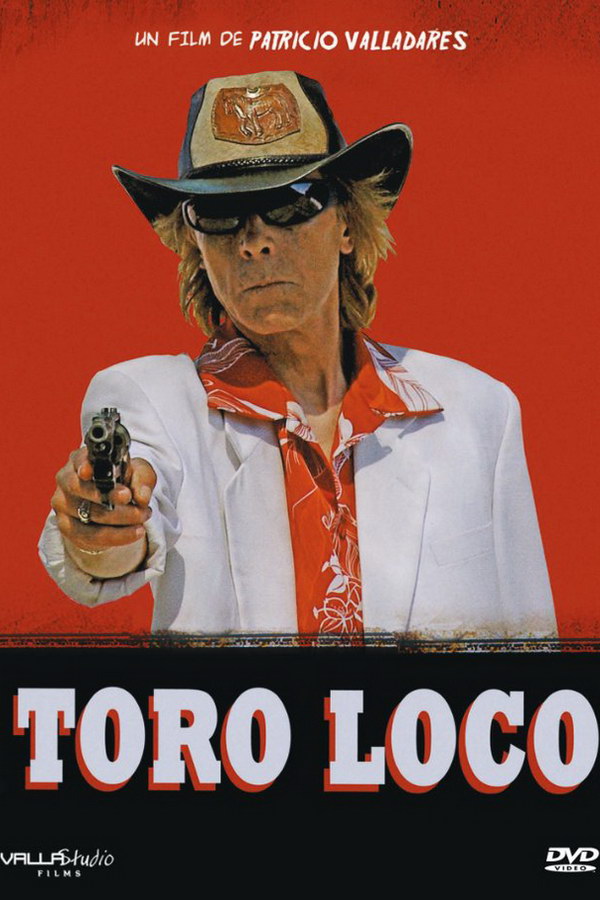
The poster's movie title uses the Rockwell Bold Condensed font, a geometric slab serif design first created by Inland type foundry in 1910. More information can be found here.